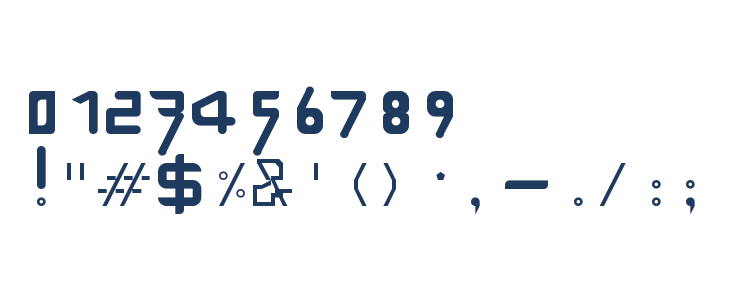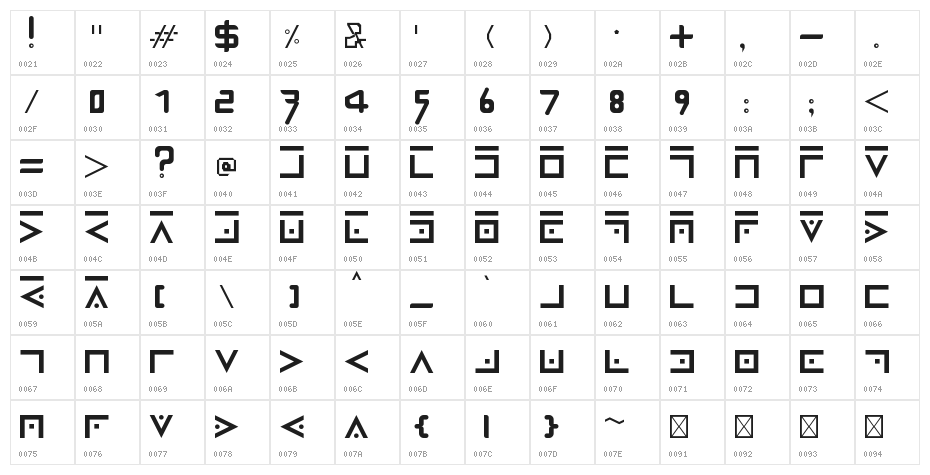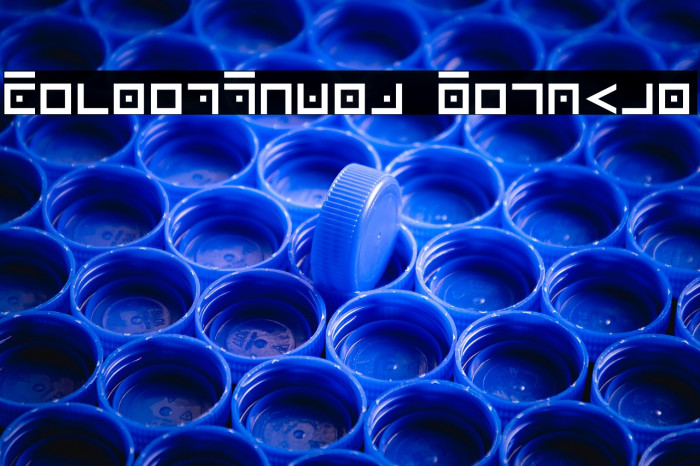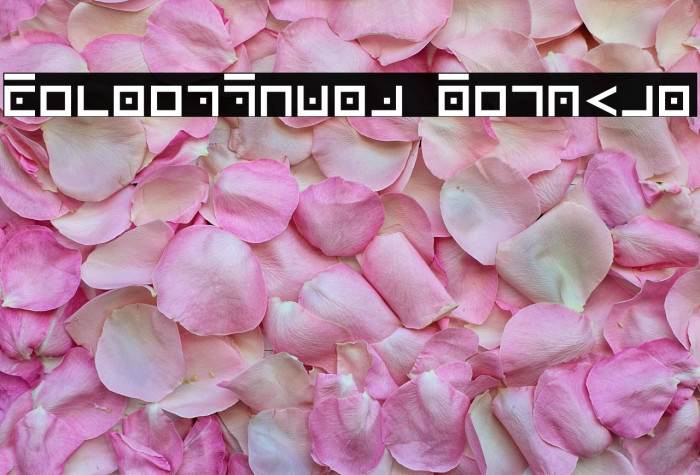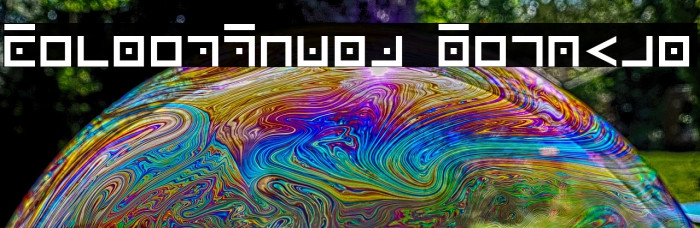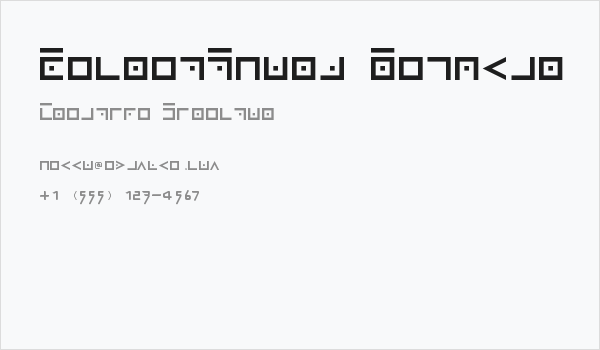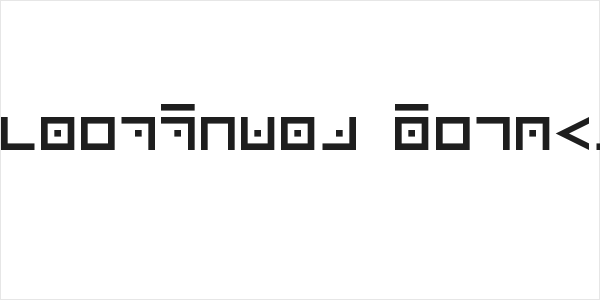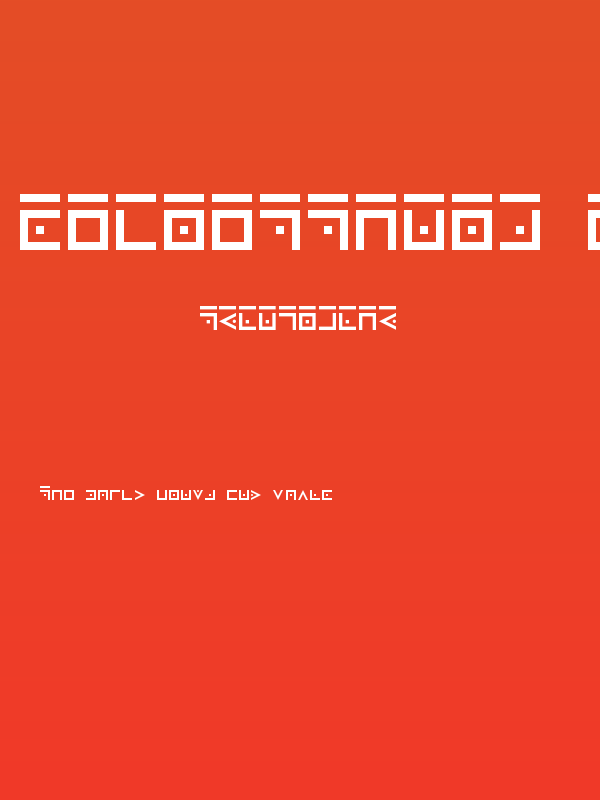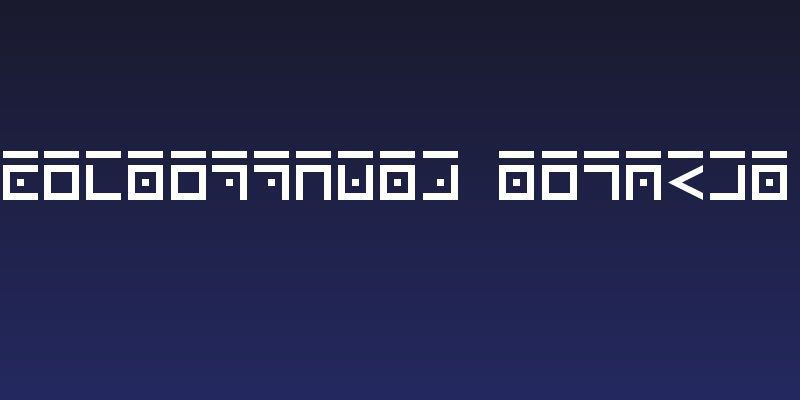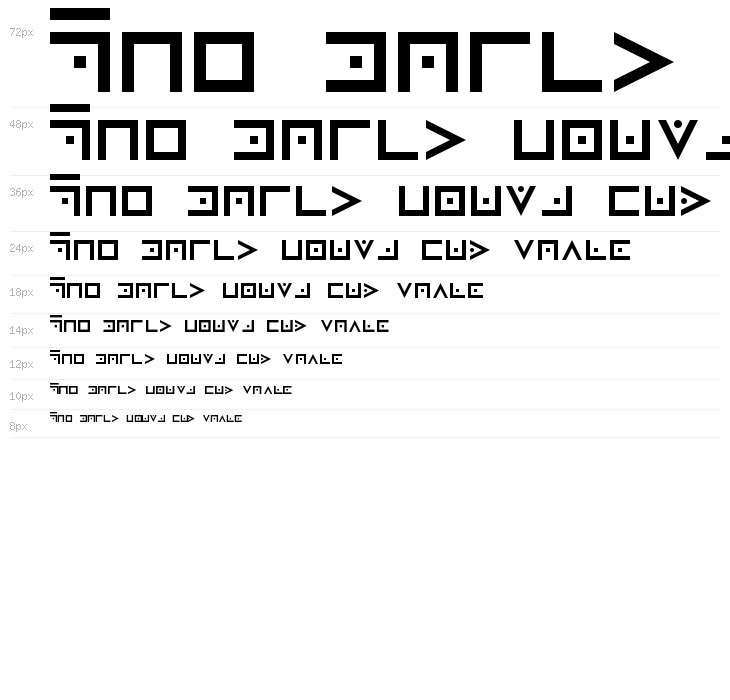
SecretThorn Regular Font
SecretThorn Regular Description
This font features a futuristic and geometric design, characterized by its angular and sharp edges. The letters are constructed with straight lines and acute angles, giving it a digital or sci-fi appearance. The uppercase letters are bold and prominent, while the lowercase letters maintain a consistent style with slightly reduced height. Numbers follow the same geometric pattern, ensuring uniformity across all characters. Special characters are designed to match the overall aesthetic, making them suitable for thematic projects. The font's unique style makes it ideal for creative and modern applications.